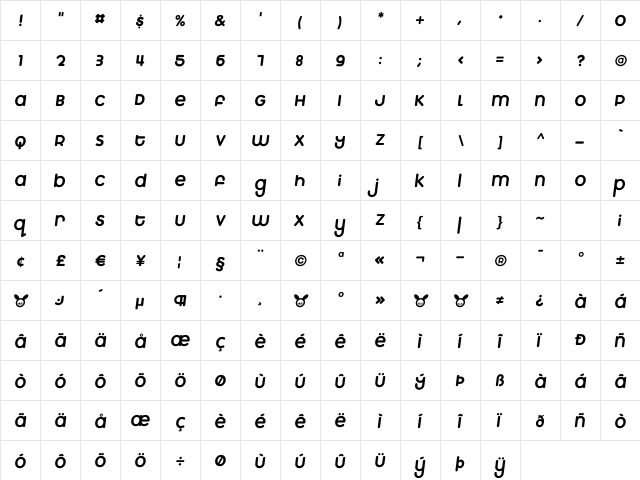
MarshmallowItalic Regular
Design Context for MarshmallowItalic Typeface
MarshmallowItalic offers clean, dependable letterforms without strong stylistic allegiance, making it a practical choice for designers who need flexibility. The slanted form adds forward momentum and visual energy.
Pro Tip: Use MarshmallowItalic for emphasis, pull quotes, and subheadings where its slanted energy can add rhythm to the layout.